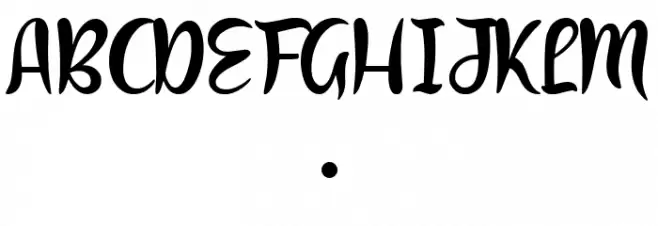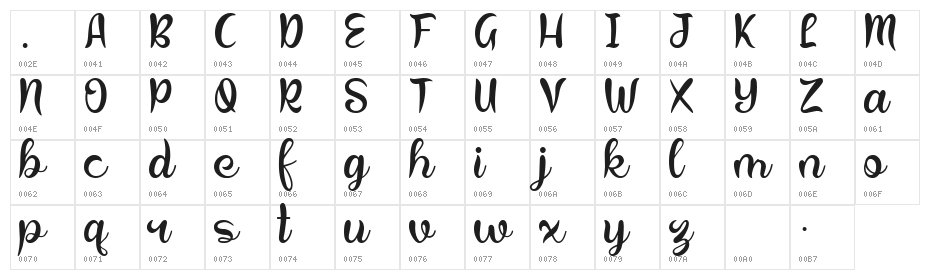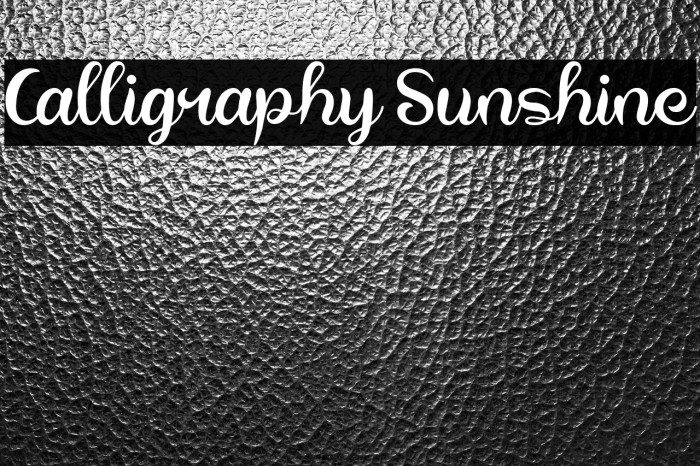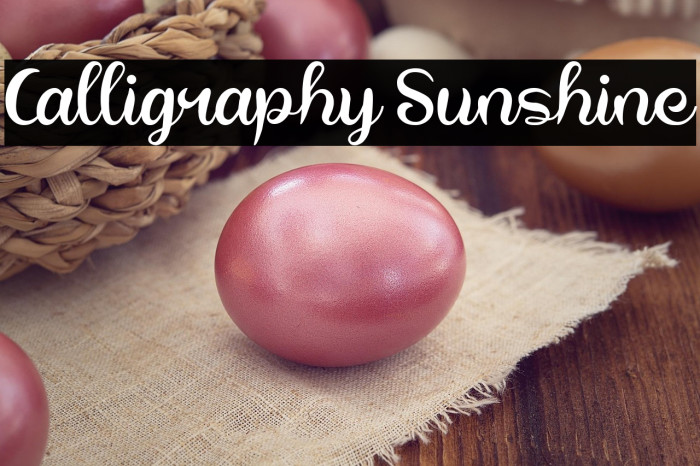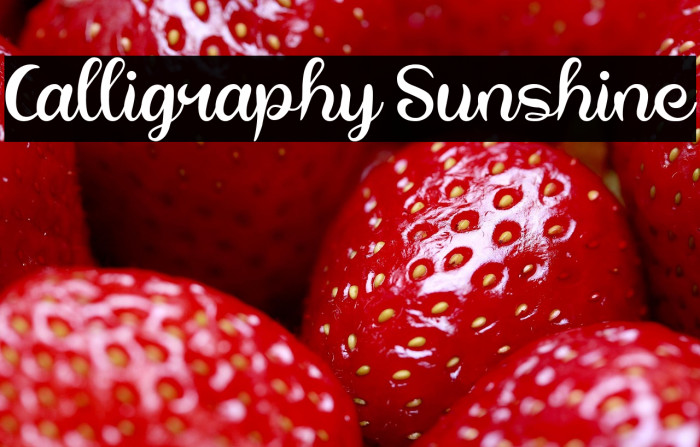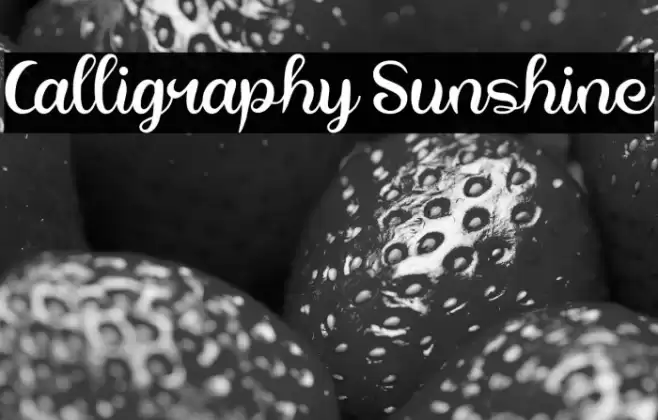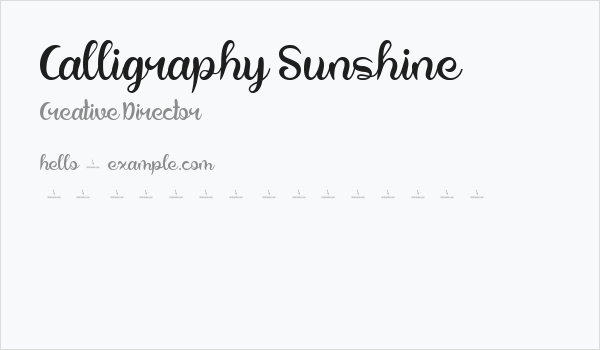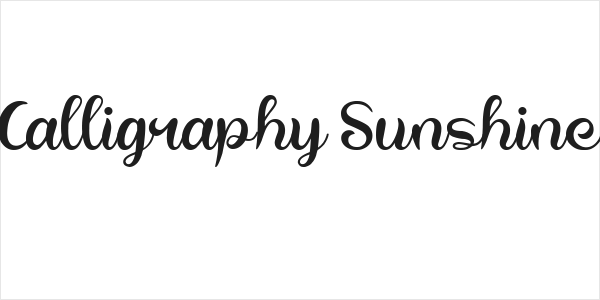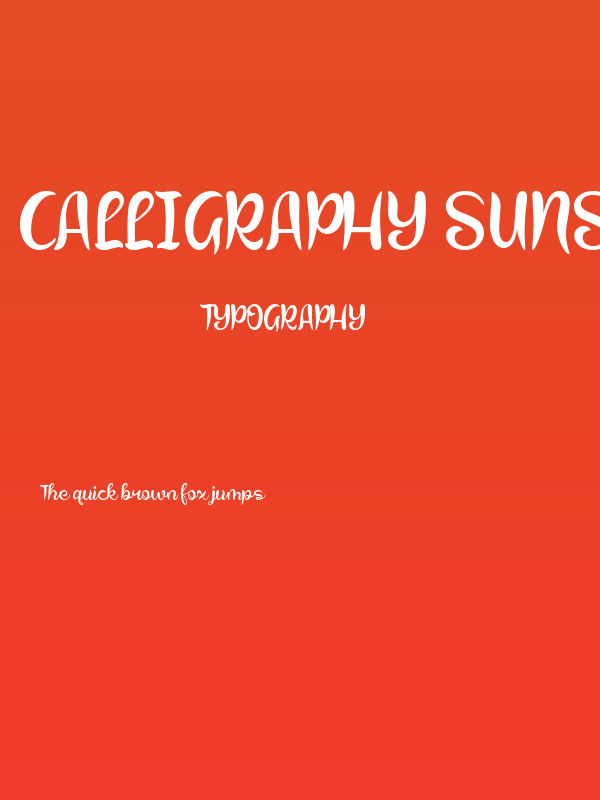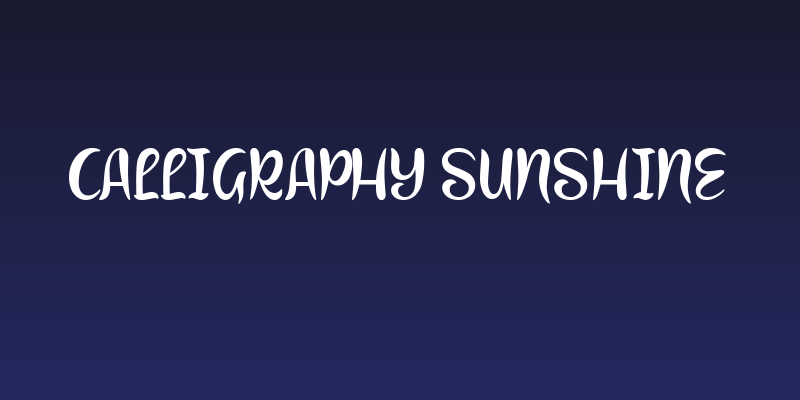
Calligraphy Sunshine Font
Calligraphy Sunshine Description
This font exudes a lively and artistic flair, characterized by its flowing, cursive style that mimics the elegance of traditional calligraphy. The letters are interconnected with sweeping curves and loops, giving it a dynamic and fluid appearance. The strokes vary in thickness, adding a sense of rhythm and movement to the text. This font is perfect for creating a sense of sophistication and creativity, making it ideal for artistic projects. The uppercase letters are bold and prominent, while the lowercase letters maintain a graceful continuity. The overall design is both decorative and functional, suitable for a variety of creative applications.
| Proposed Projects | Ideal for wedding invitations, greeting cards, artistic branding, and decorative posters. |